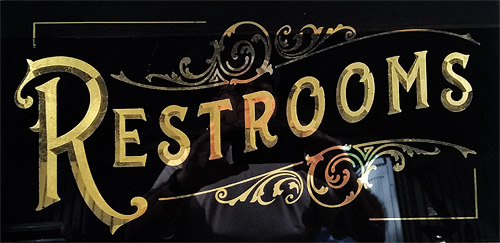
How is this done
I mainly do etched glass and just dabble in gold leaf work so this is beyond me. I don't post much as I don't do much in the way of the techniques some of you masters do. So not much to offer.
Anyway, I am trying to figure how the bevel is done on the image below (not my work, just something I grabbed online for ideas). It really makes things pop.I am trying to get into a little more than just an easy project so I can add some to my etch work.
the photo you posted is referred to as a Boston gild.
In the thread they're discussing palladium. While the steps described are a Botson gild, I believe a single karat of gold is generally used.
This is Bob Gamache. I was breezing through some older posts and stumbled on your post from 2018! I'm the person who made the gilded black glass restroom sign. It hangs in the playwright bar in times square nyc. its about 10"x24". You probably figured the technique out already by now but I'll share regardless. I started with clear glass, I then painted in reverse the background black leaving the lettering and scrolling clear. I used quick size to paint in the bevel sections then water gilded using 23k. Then sealed the entire back of the glass with backup black with hardener.